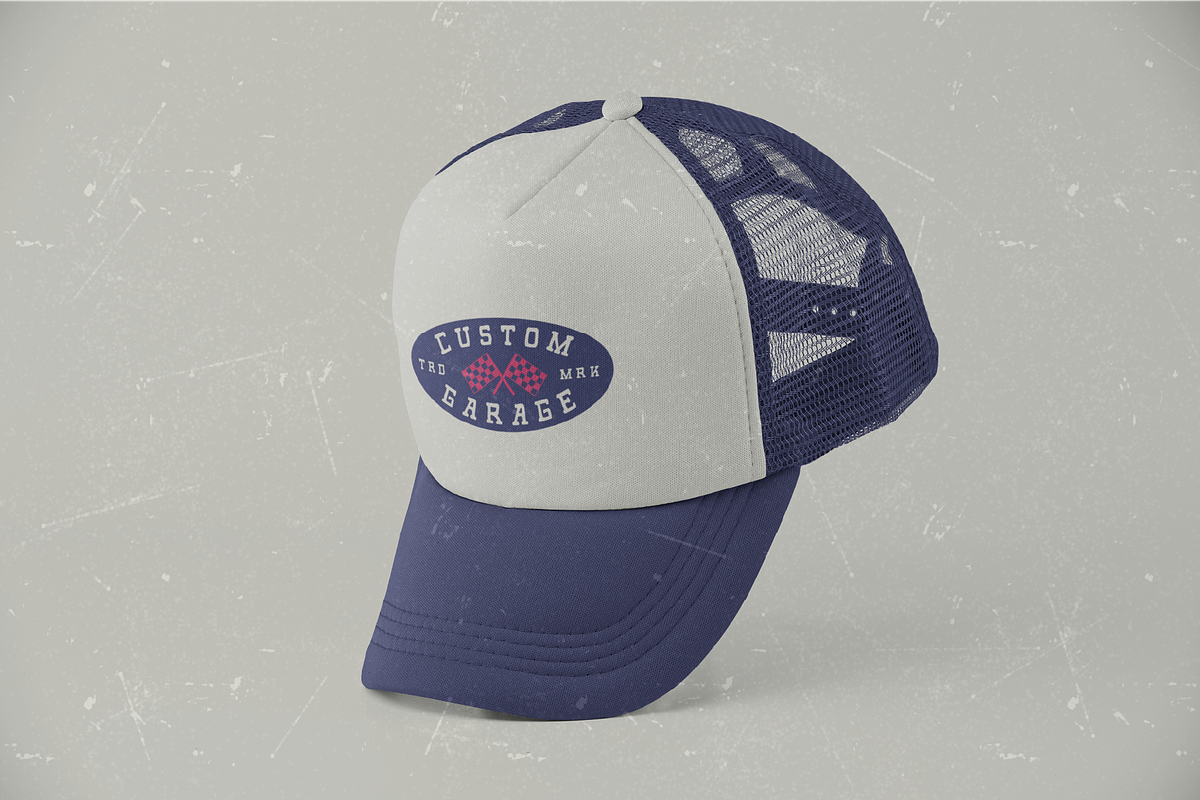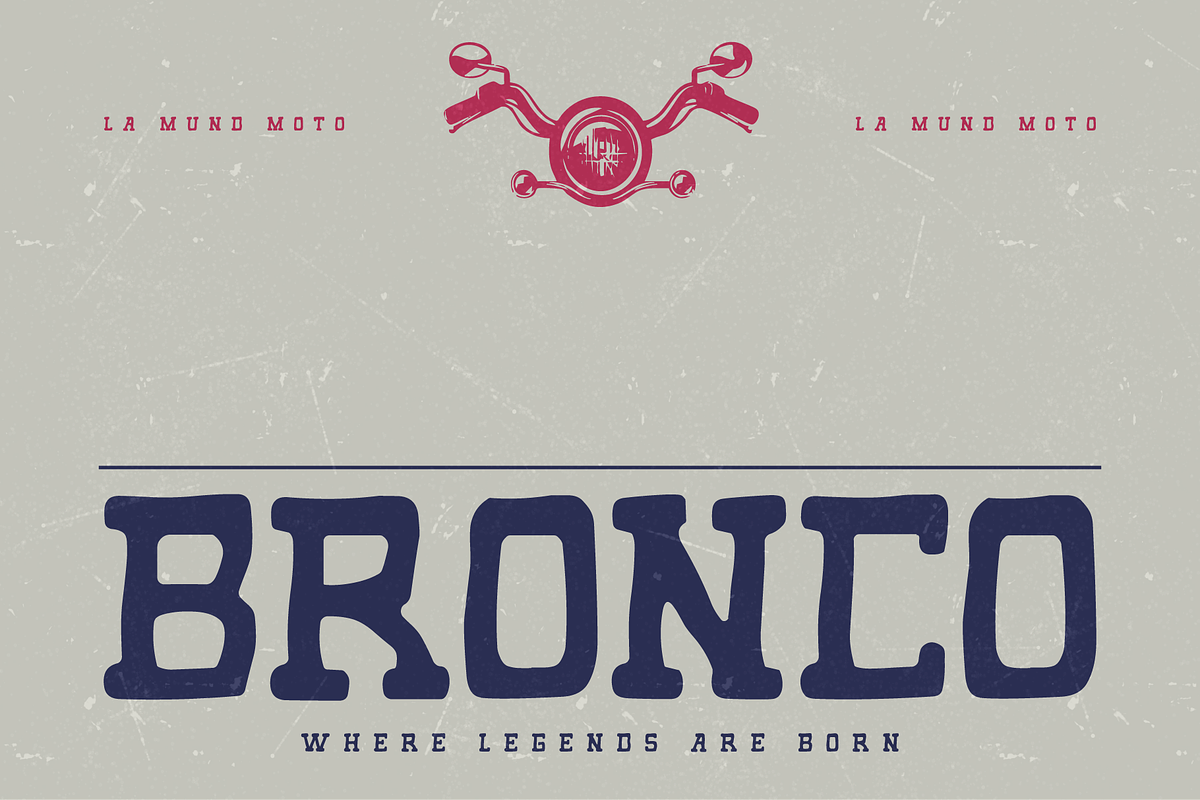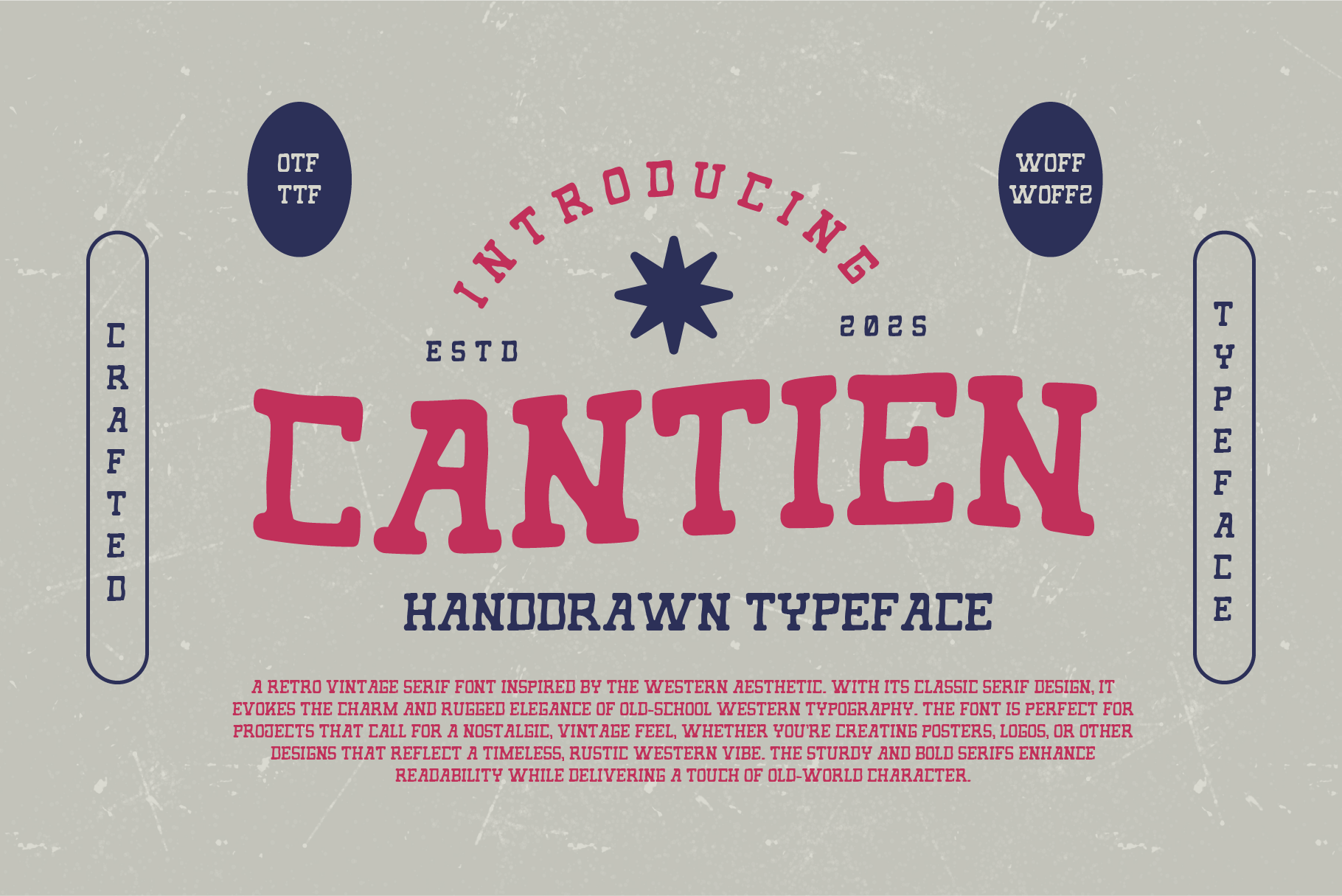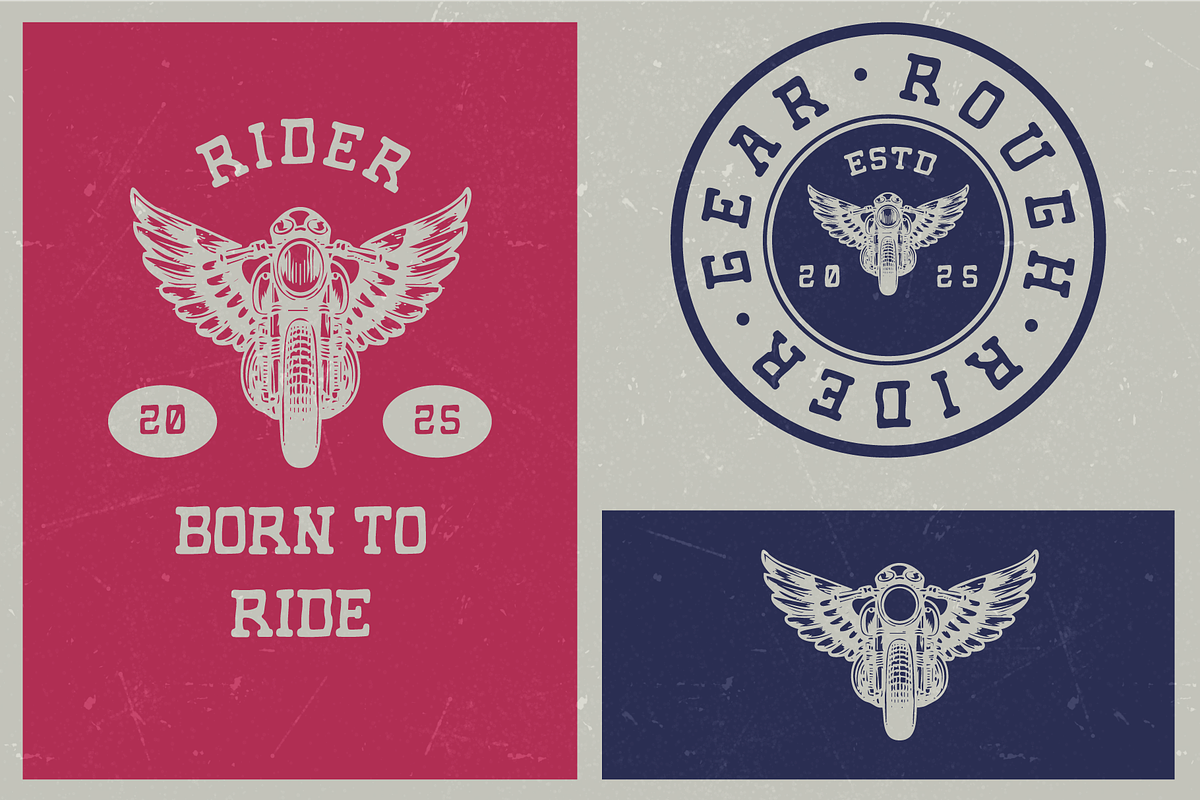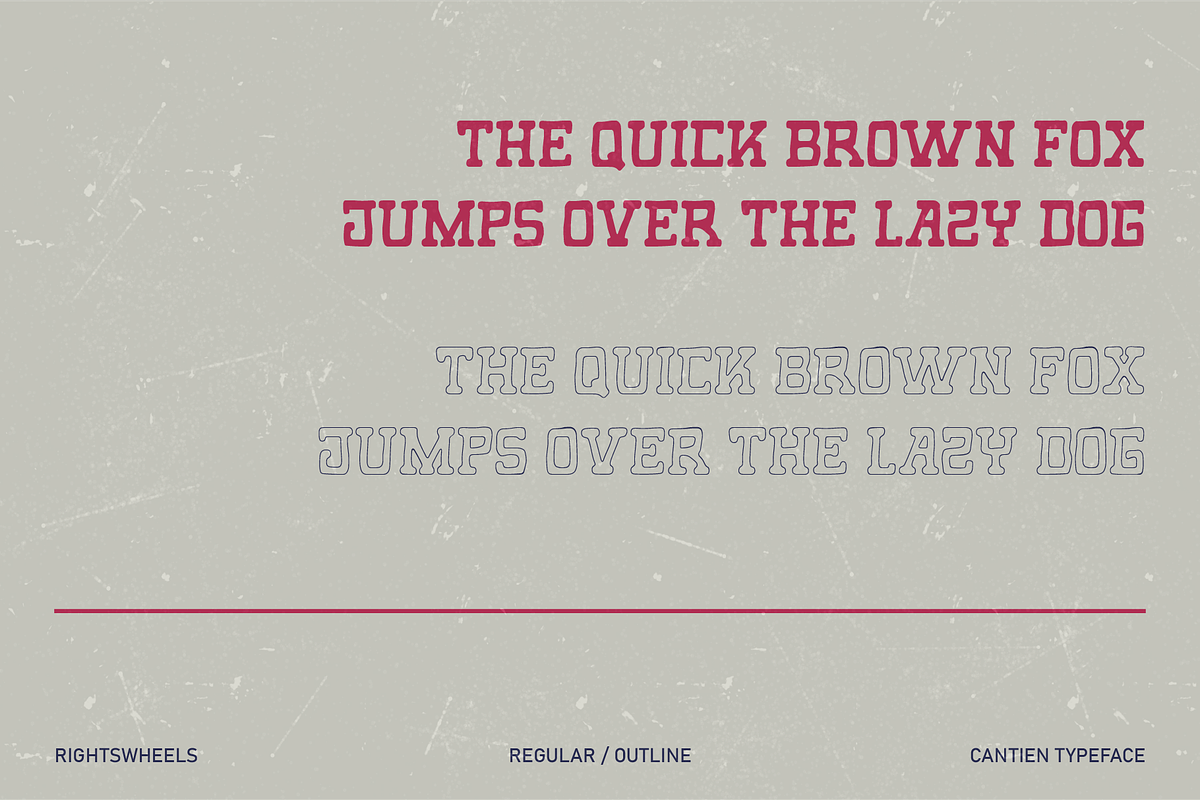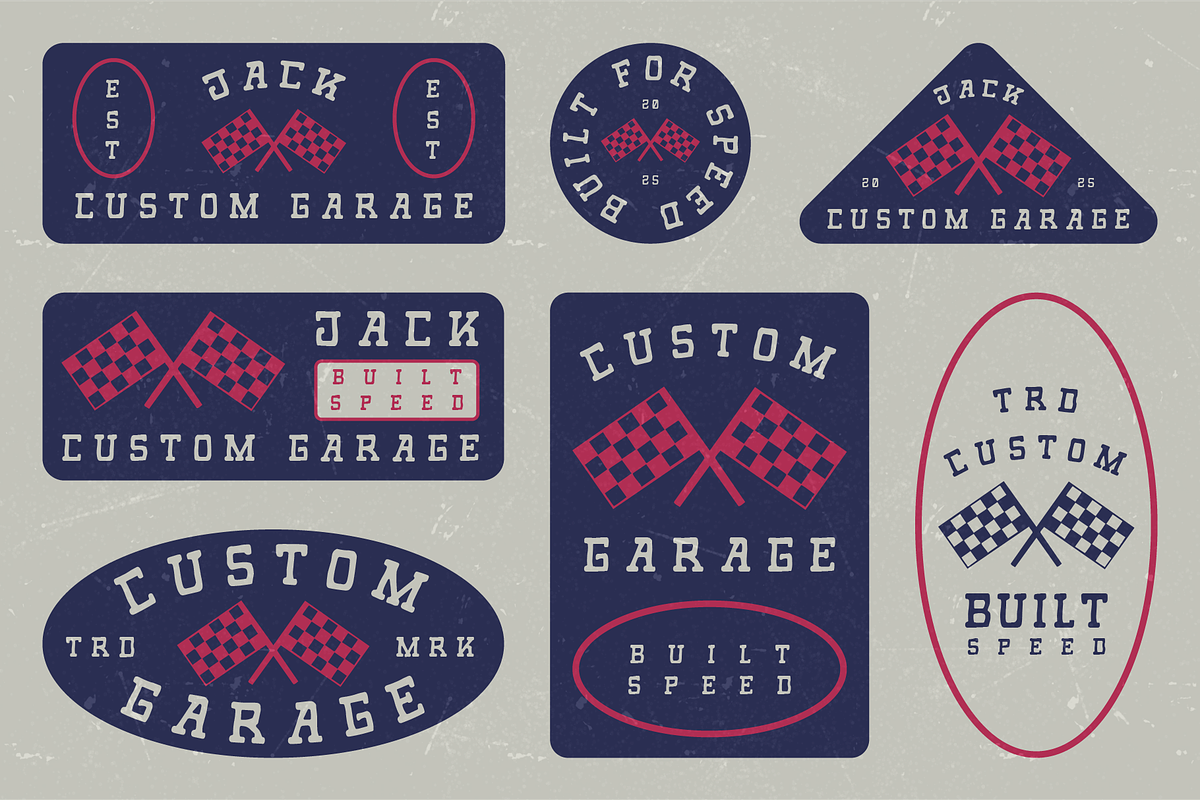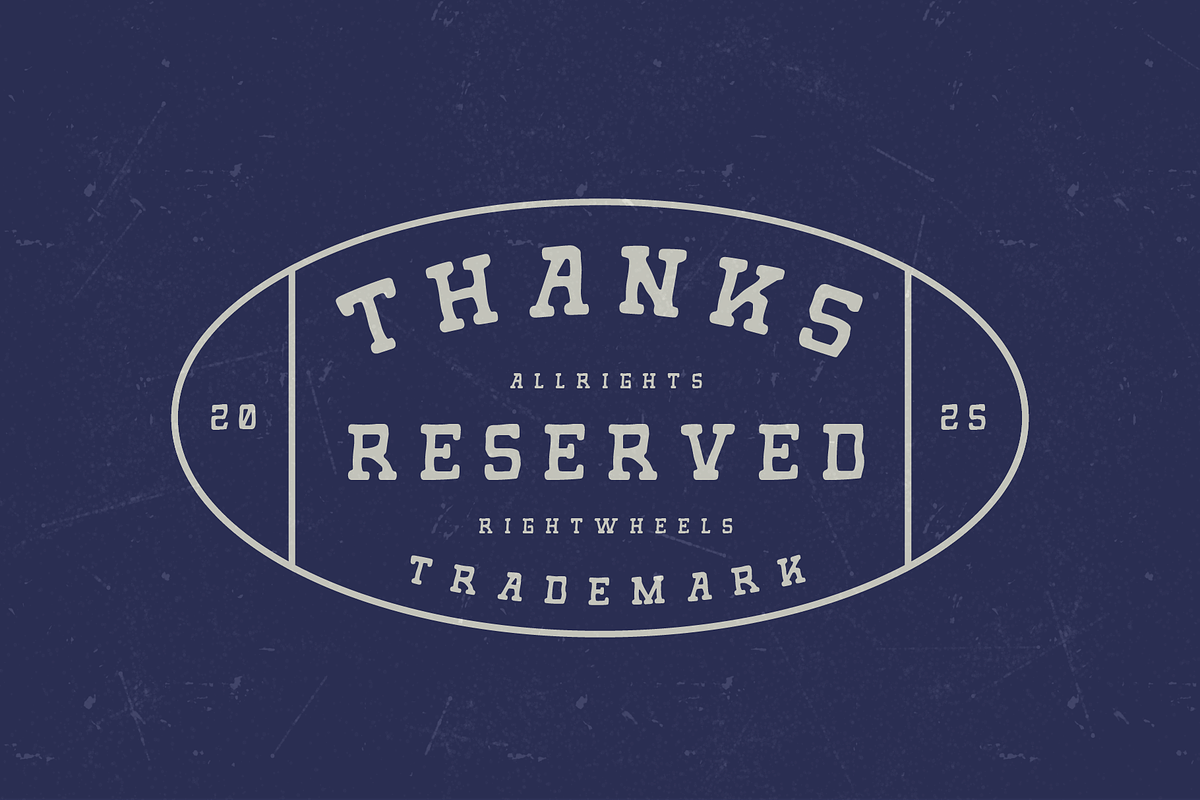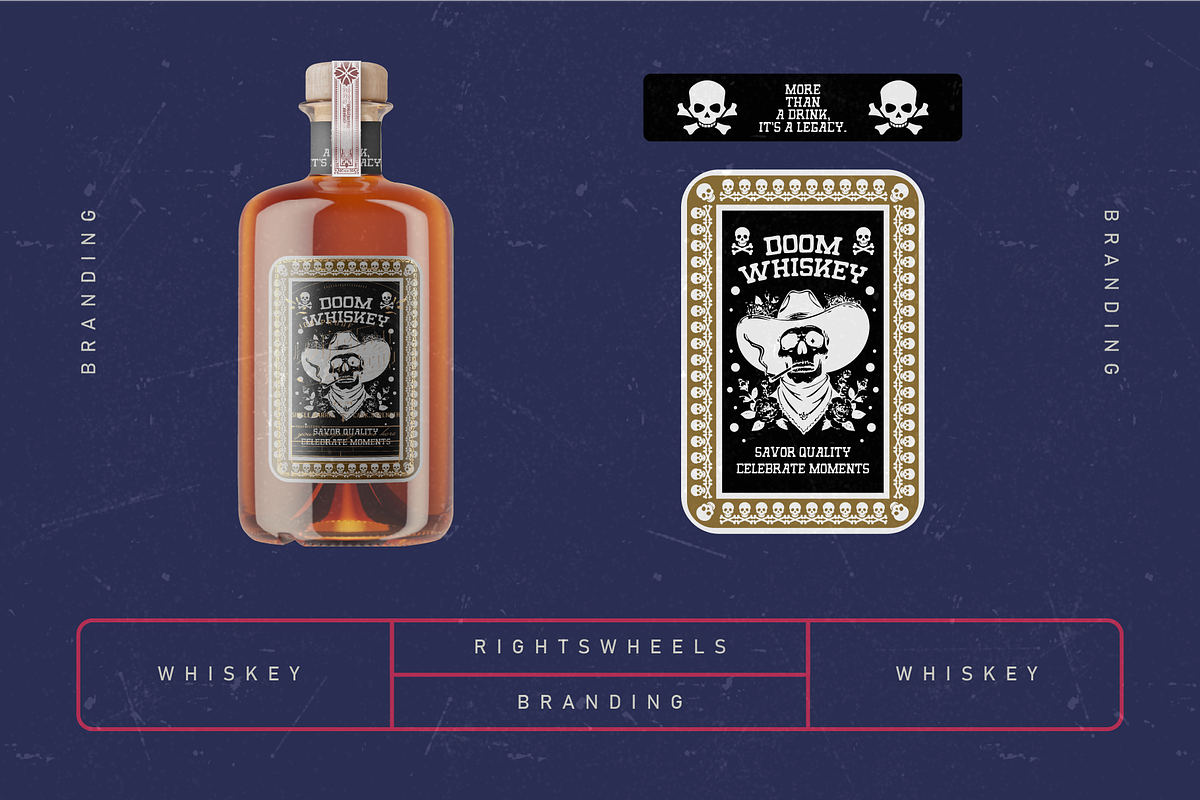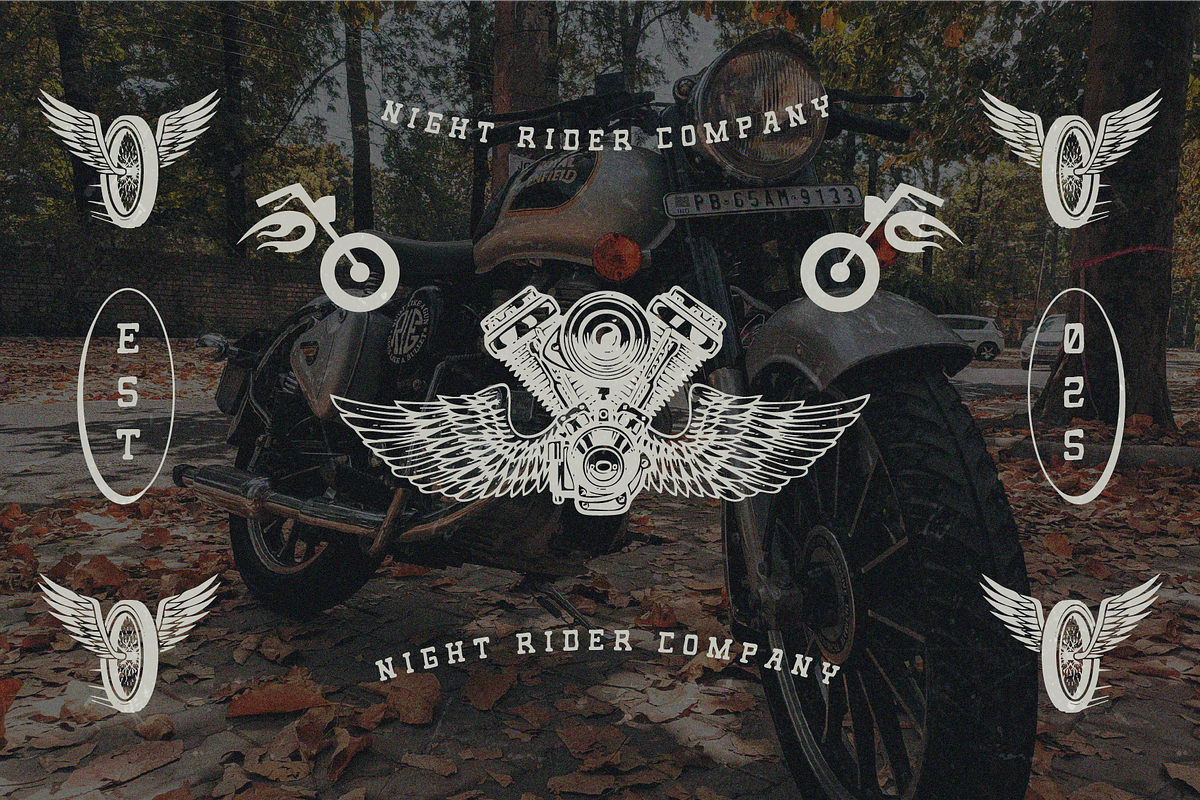
CANTIEN - Handdrawn Font
Cantien is a retro vintage serif font inspired by the Western aesthetic. With its classic serif design, it evokes the charm and rugged elegance of old-school Western typography. The font is perfect for projects that call for a nostalgic, vintage feel, whether you're creating posters, logos, or other designs that reflect a timeless, rustic Western vibe. The sturdy and bold serifs enhance readability while delivering a touch of old-world character.